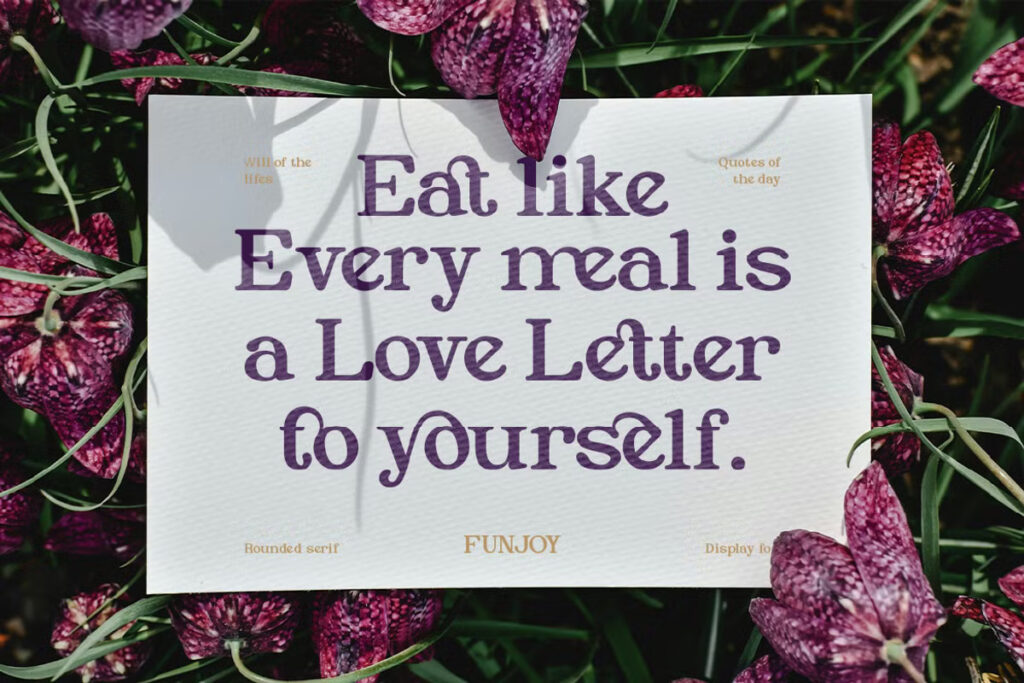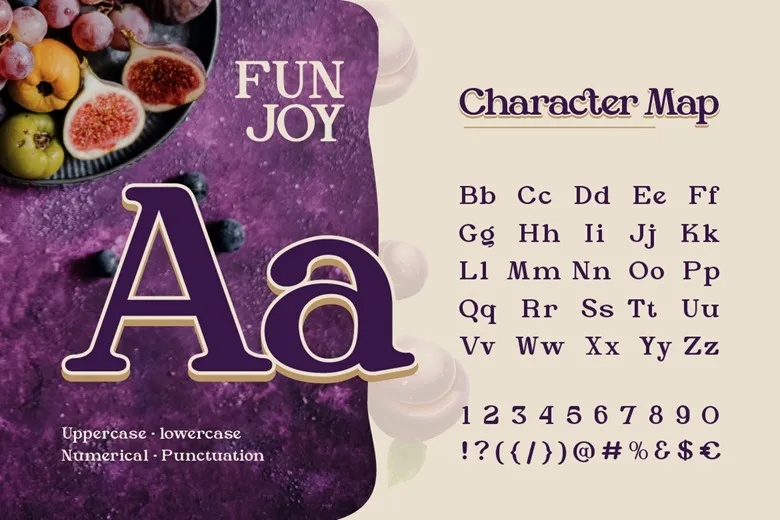
Funjoy is a new rounded serif font that exudes joy and playfulness. Inspired by the charm of the ‘90s but with a modern touch, it’s perfect for projects that need a cheerful and inviting atmosphere.
An interesting experiment in Franklin Gothic Book, Funjoy incorporates alternates, ligatures, and multilingual support, making it a versatile choice for creative designs.
This font is ideal for branding, logo design, packaging, restaurant menus, headlines, social media posts, and any project that calls for a cute and welcoming aesthetic.